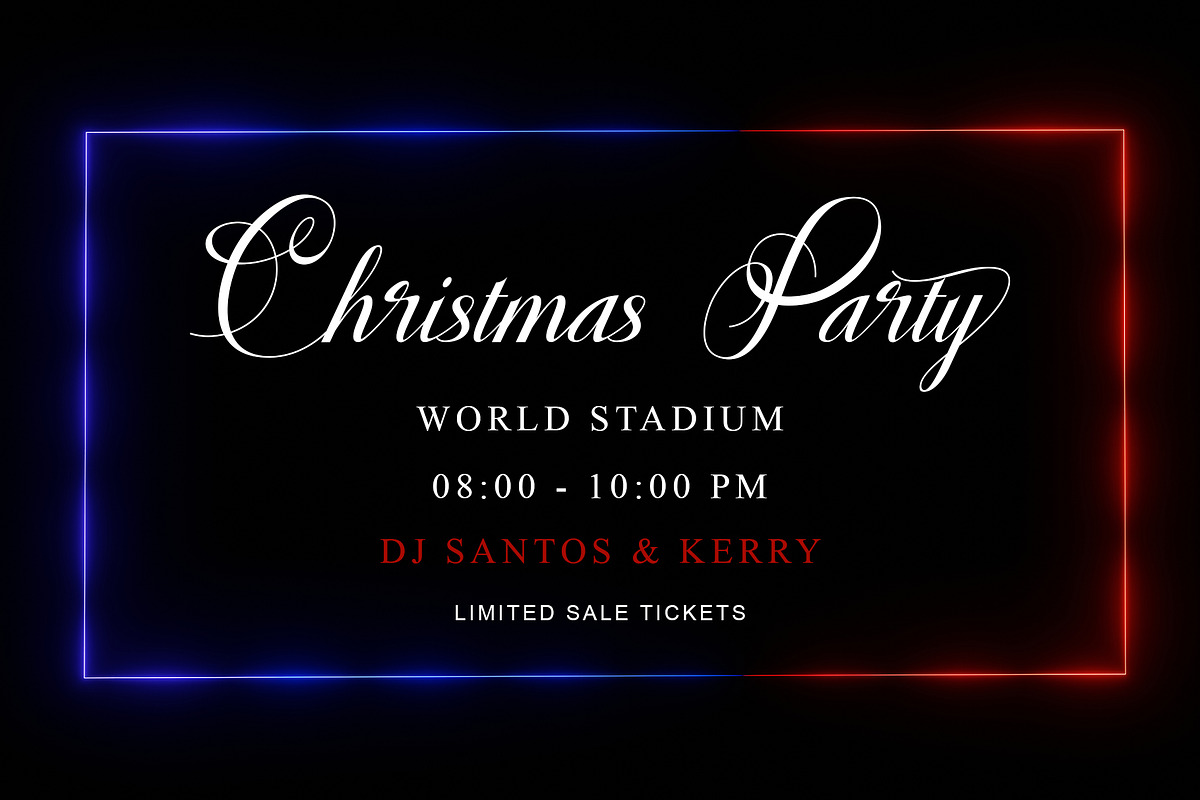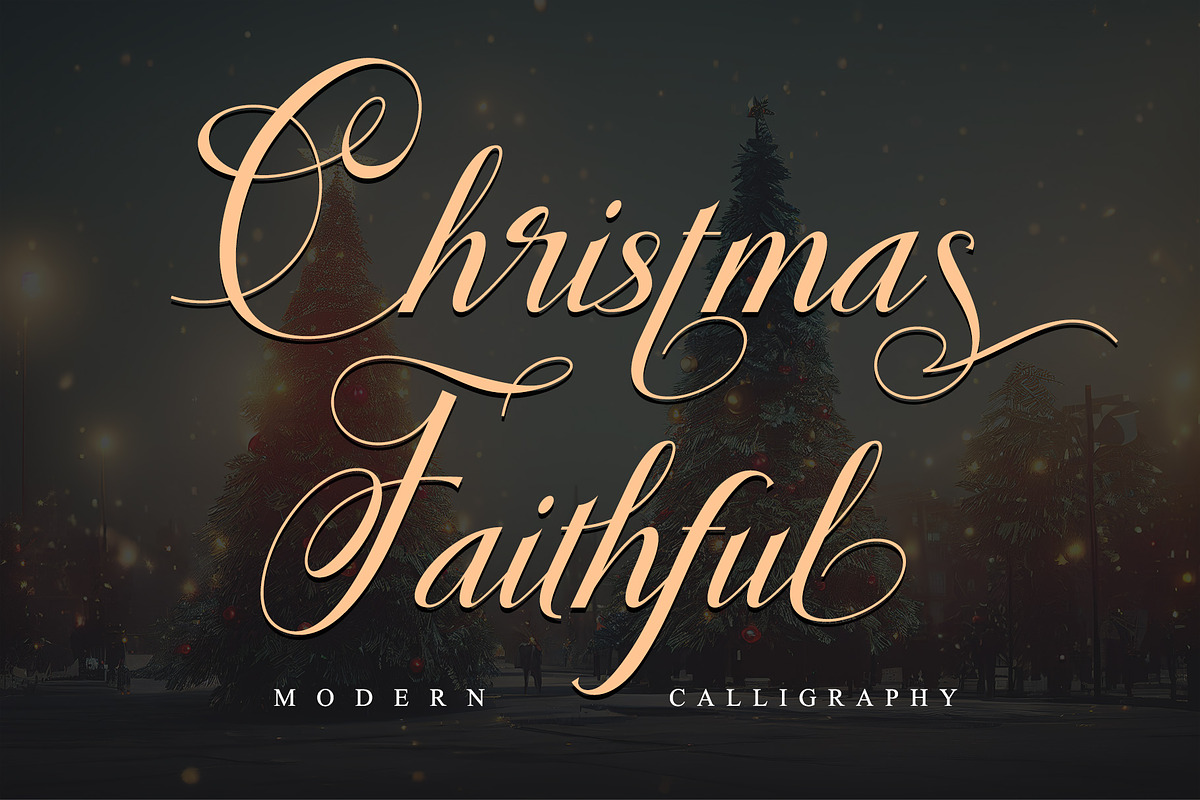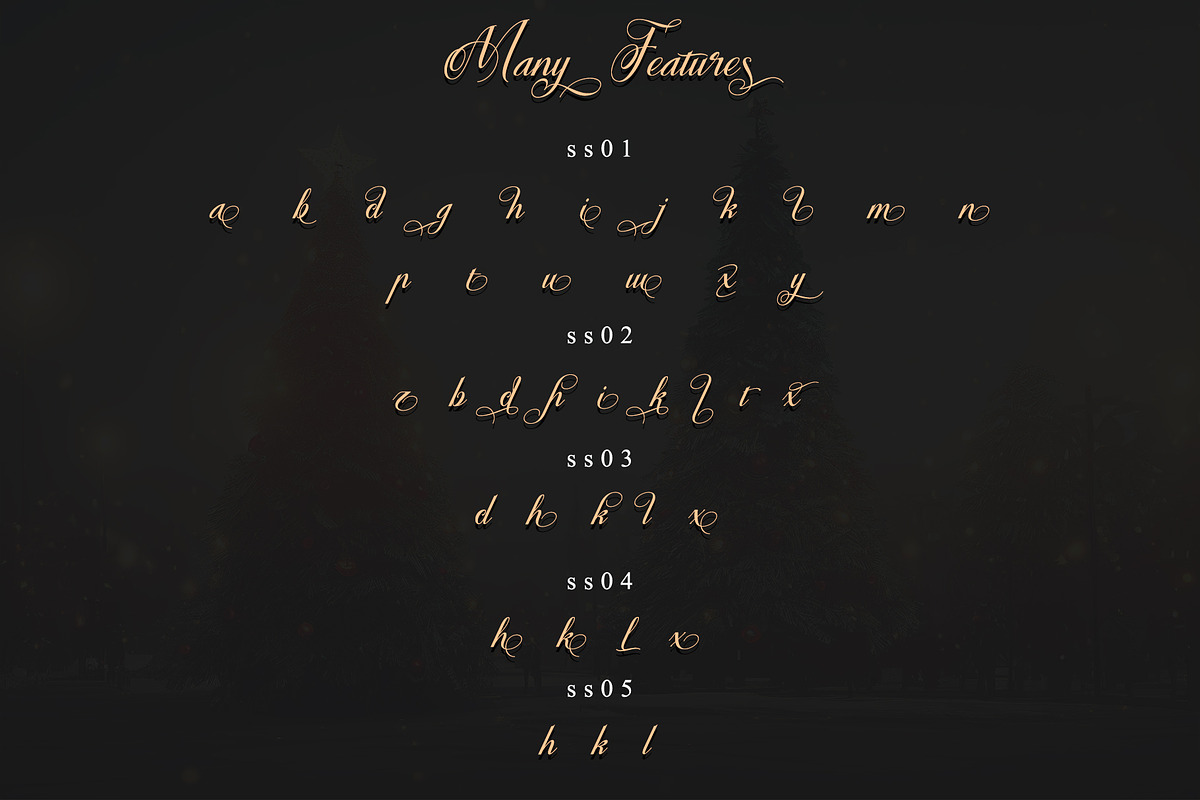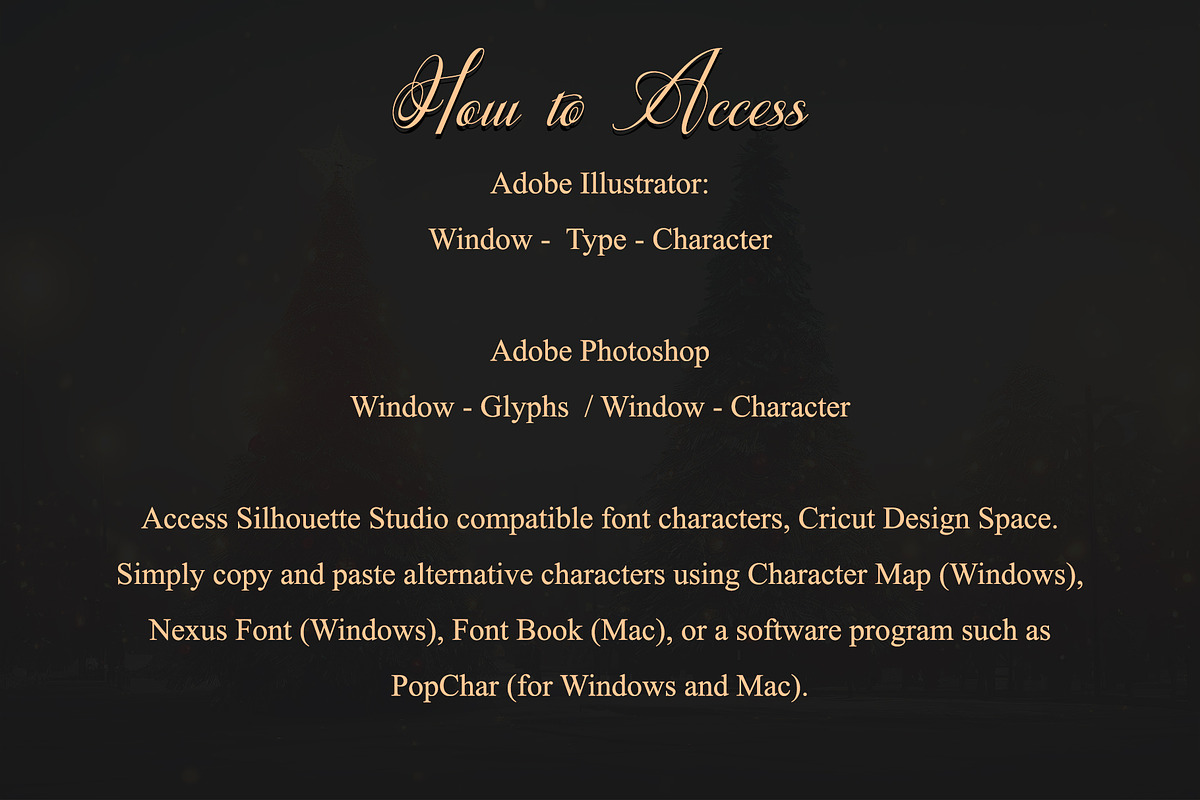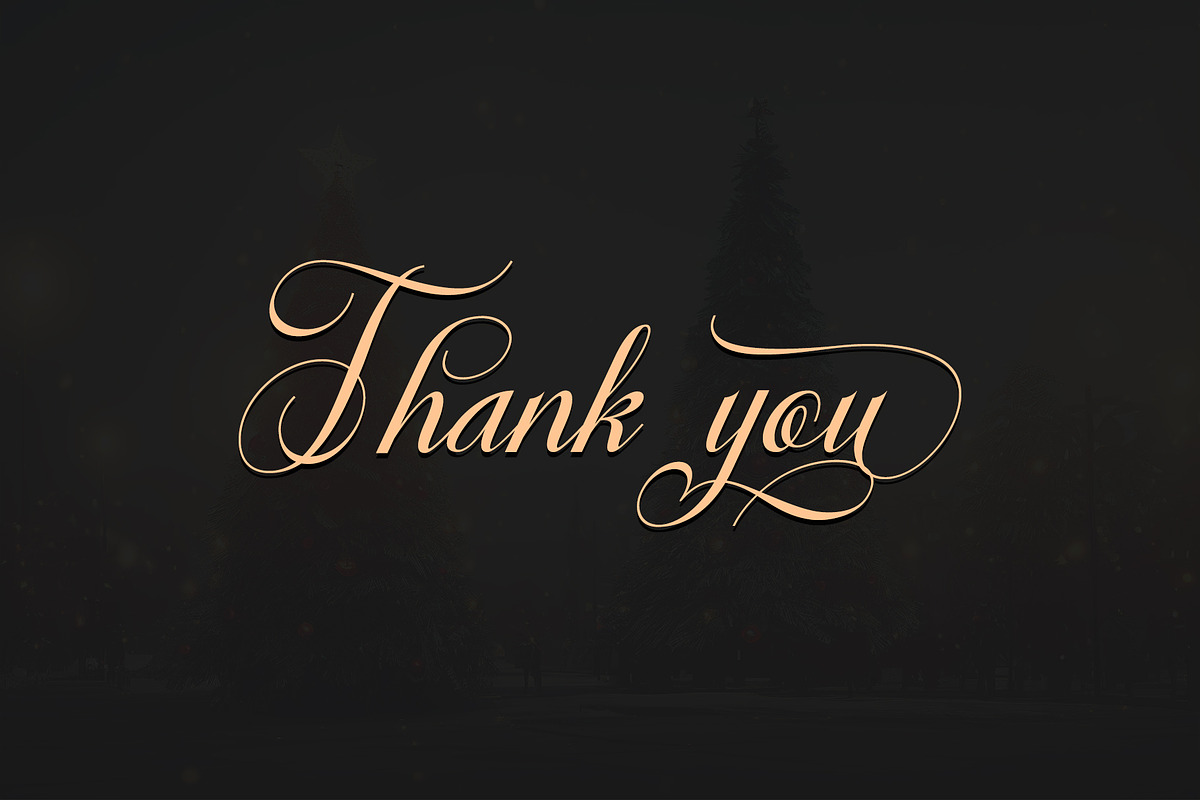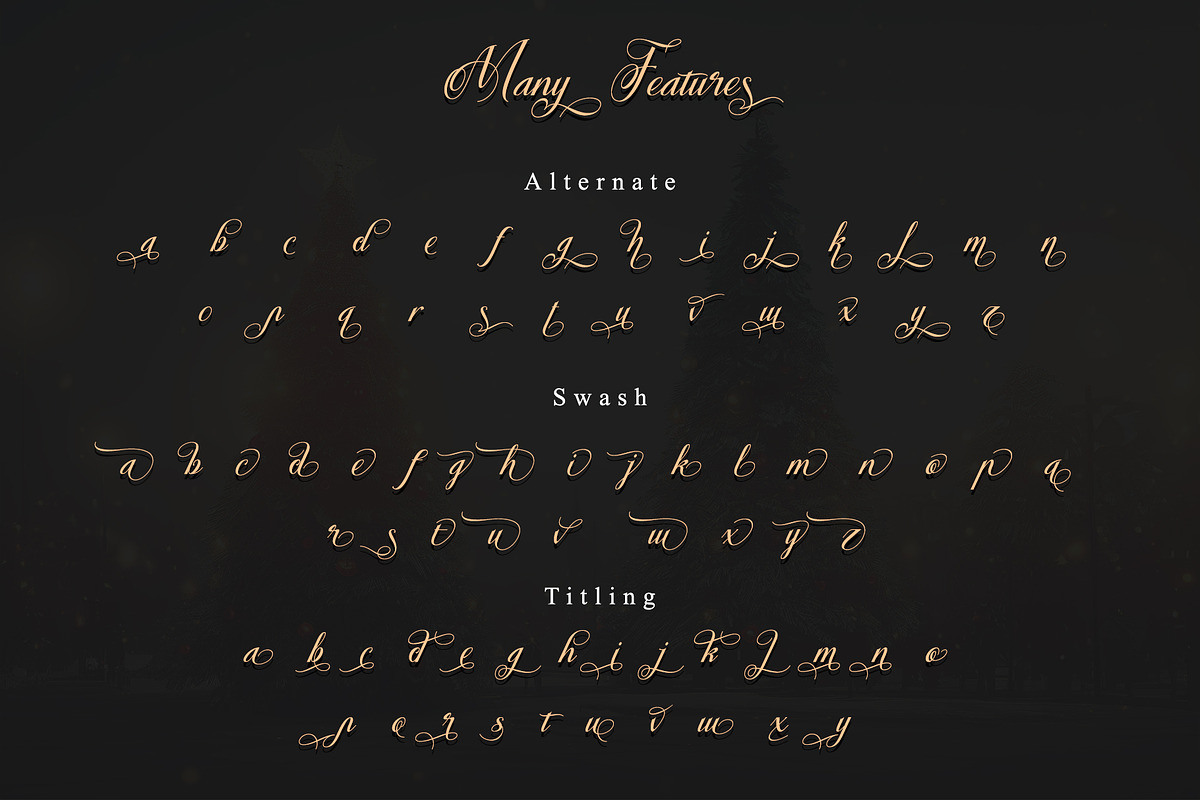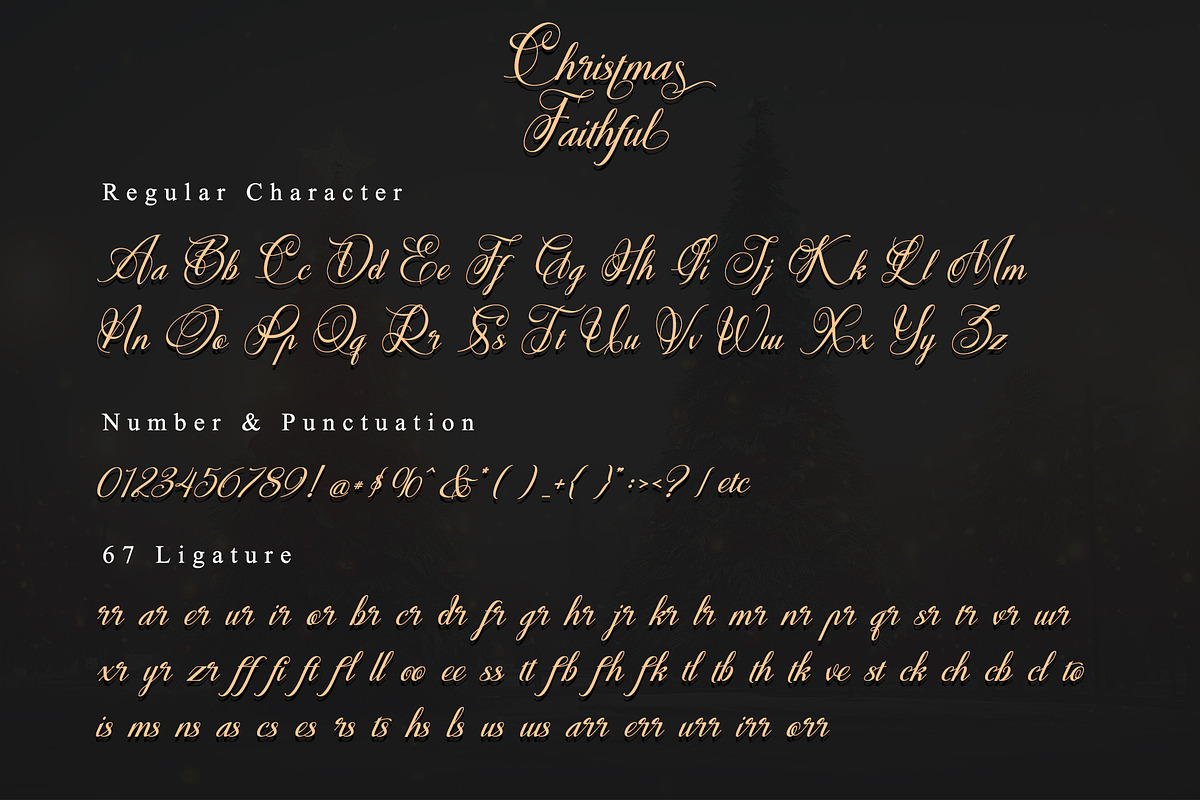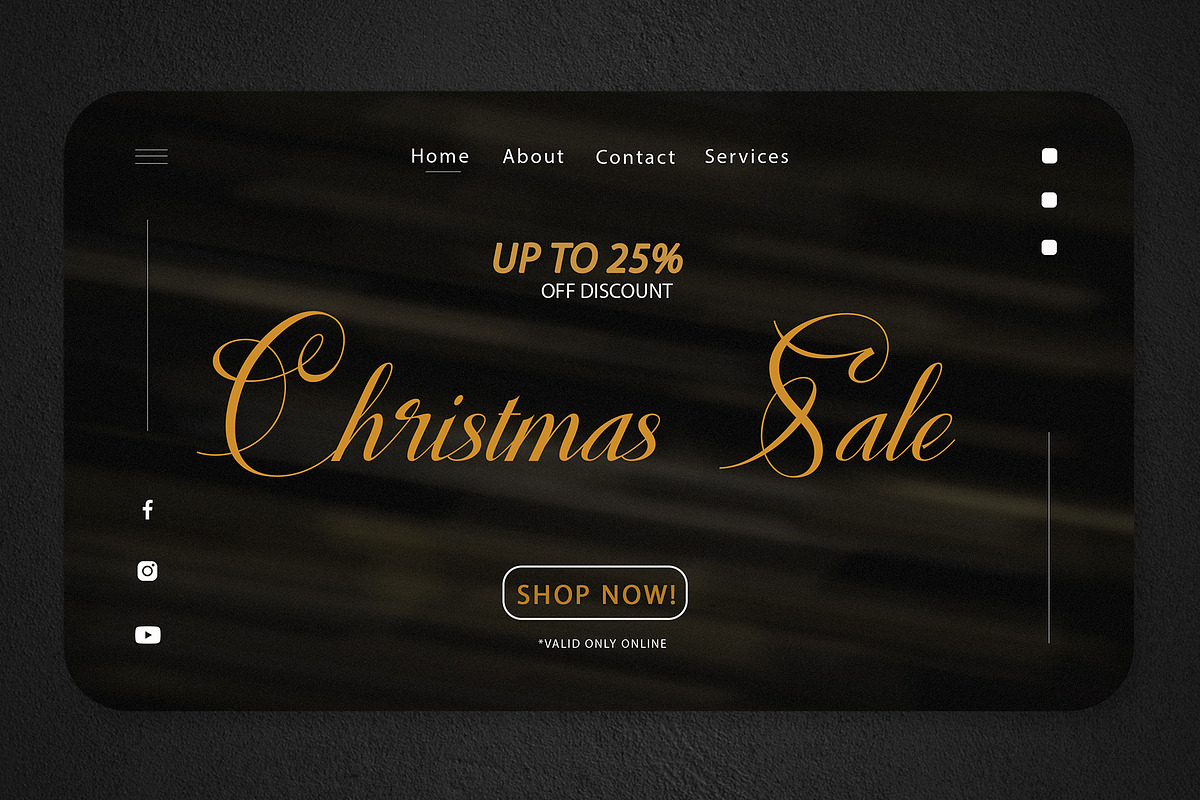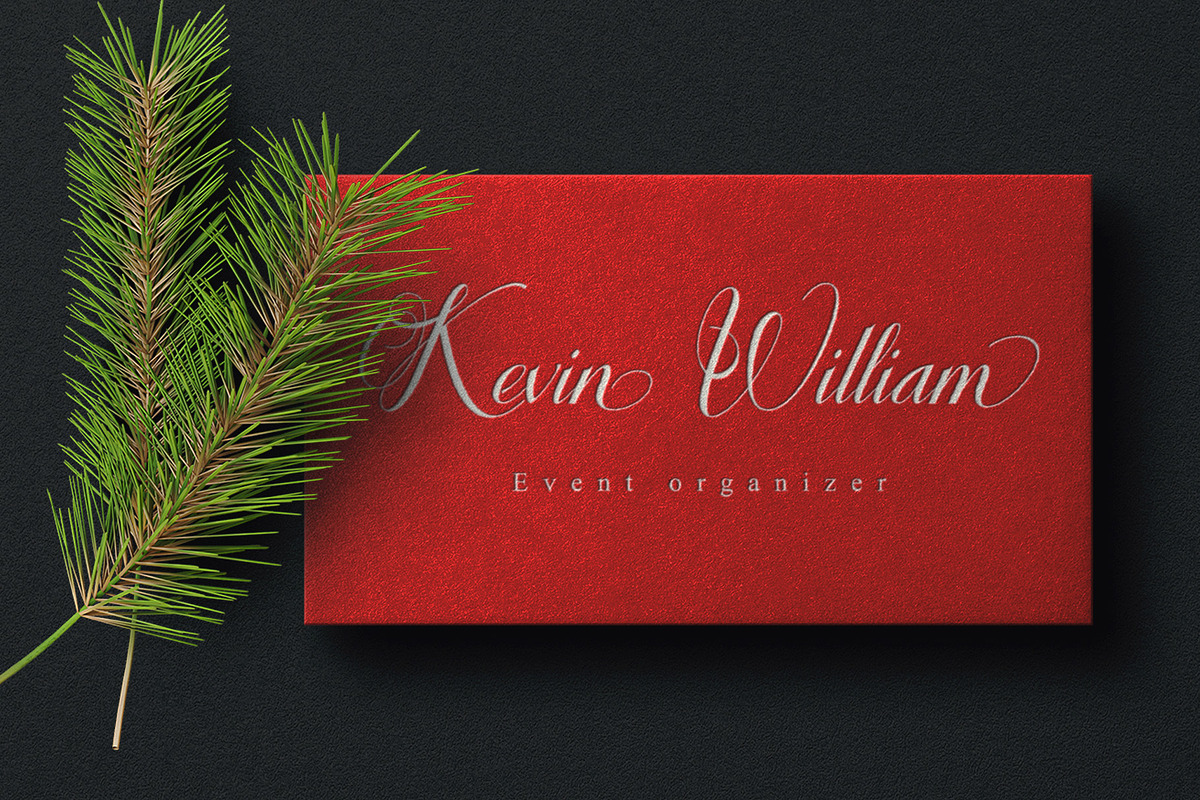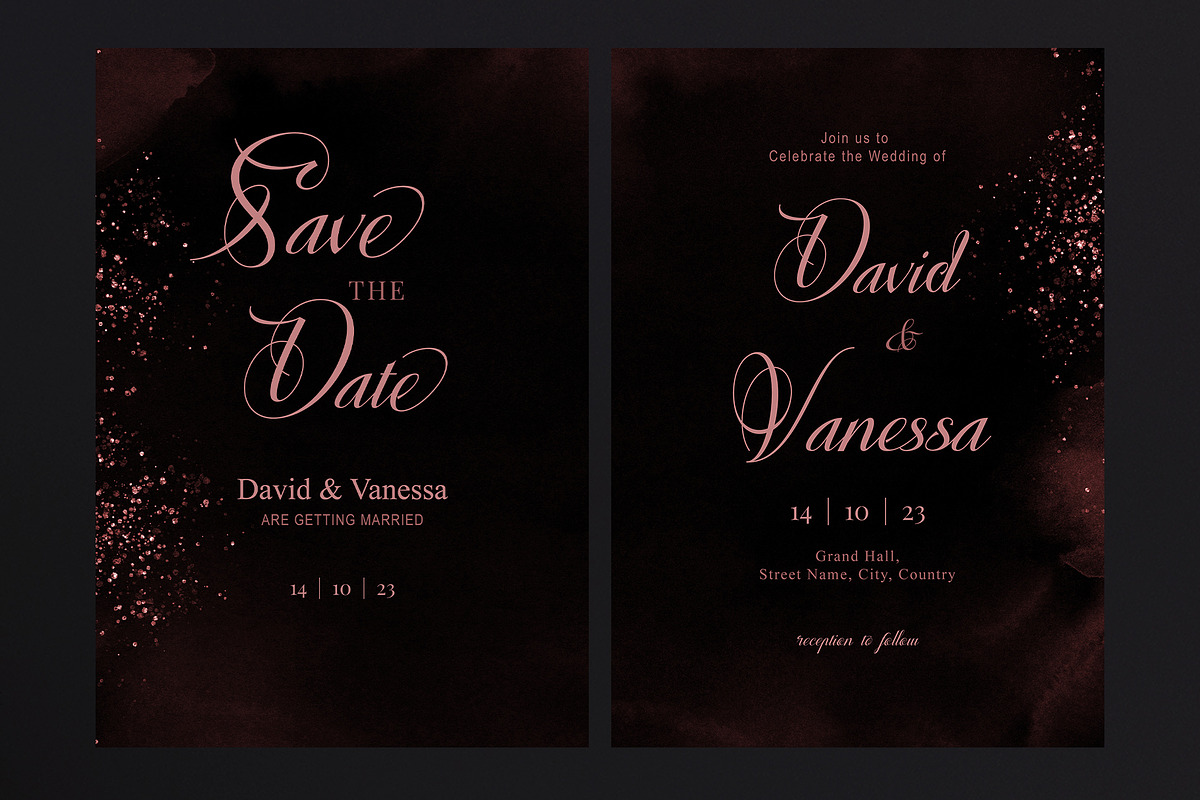
Christmas Faithful
Christmas Faithful is an enchanting calligraphy font that emanates sophistication and elegance. Fall for its ravishing style and use it to create beautiful designs. This font is PUA encoded which means you can access all glyphs and swashes with ease!
Many Features:
- Support multilingual; ä ö ü Ä Ö Ü ß ¿ ¡
- lowercase and uppercase letters
- Alternate, Swash, Titling, Ligature, SS01, SS02, SS03, & SS04